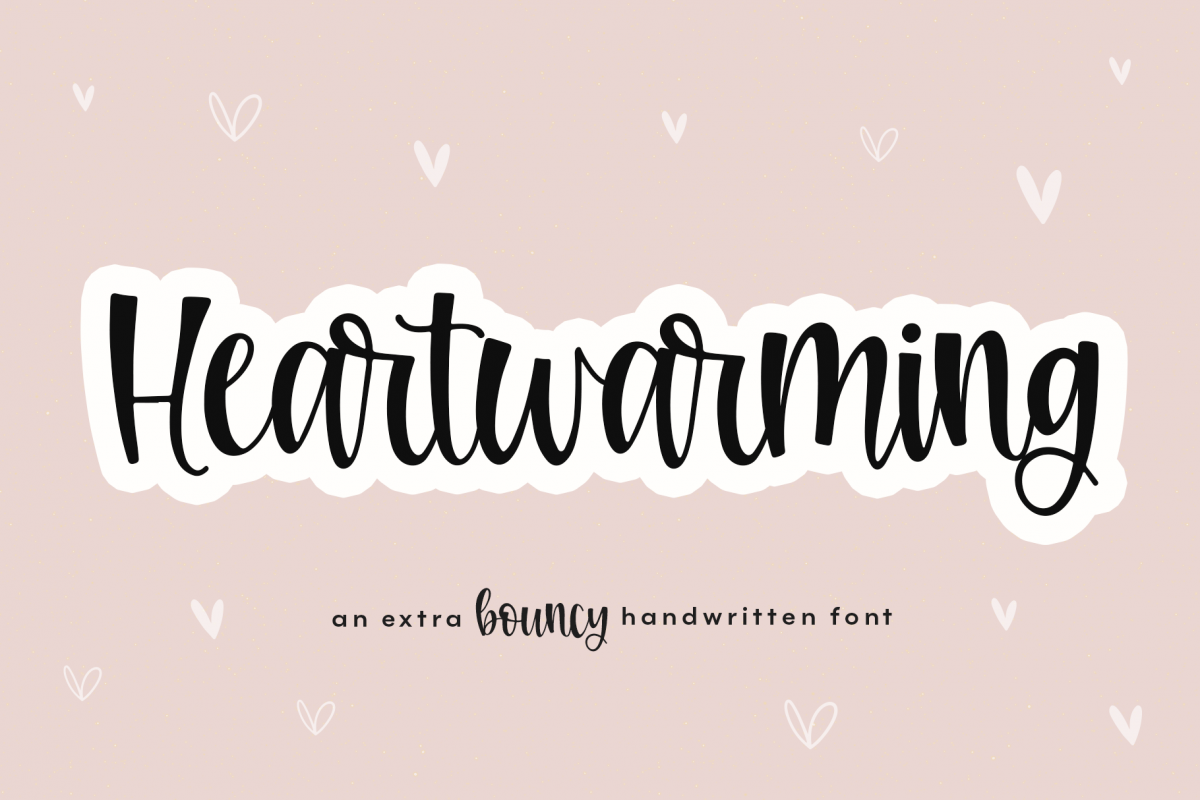
Heartwarming - A Bouncy Handwritten Script Font
Heartwarming
Heartwarming is a bouncy handwritten script font!
This font is perfect for quotes, shirt designs, websites, branding, children's designs,  blogs, logos, invitations and more!